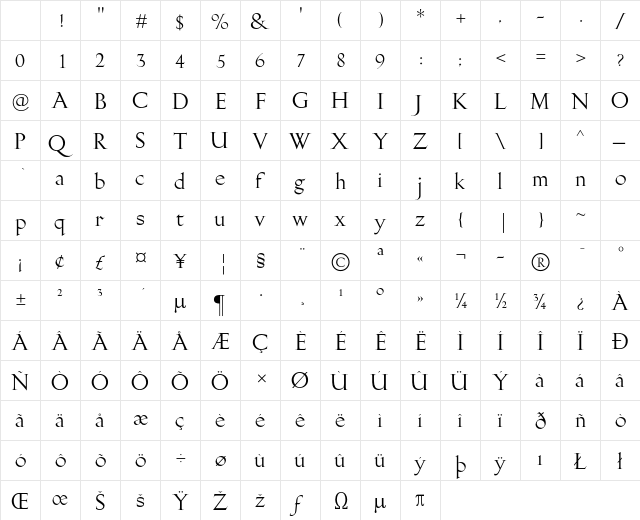
Gill Facia MT Std Regular Display
Style: Regular Display
Design Context for Gill Facia MT Std
Gill Facia MT Std is built around its visual character rather than neutral utility - its distinctive forms are designed to make an impression at display sizes.
Font Pairing: Pair with a clean neutral sans-serif for body copy to let Gill Facia MT Std's character lead without overwhelming the composition.
Pro Tip: Use Gill Facia MT Std exclusively at display sizes - it was designed to be seen, not read at length. Let a neutral companion handle body copy.